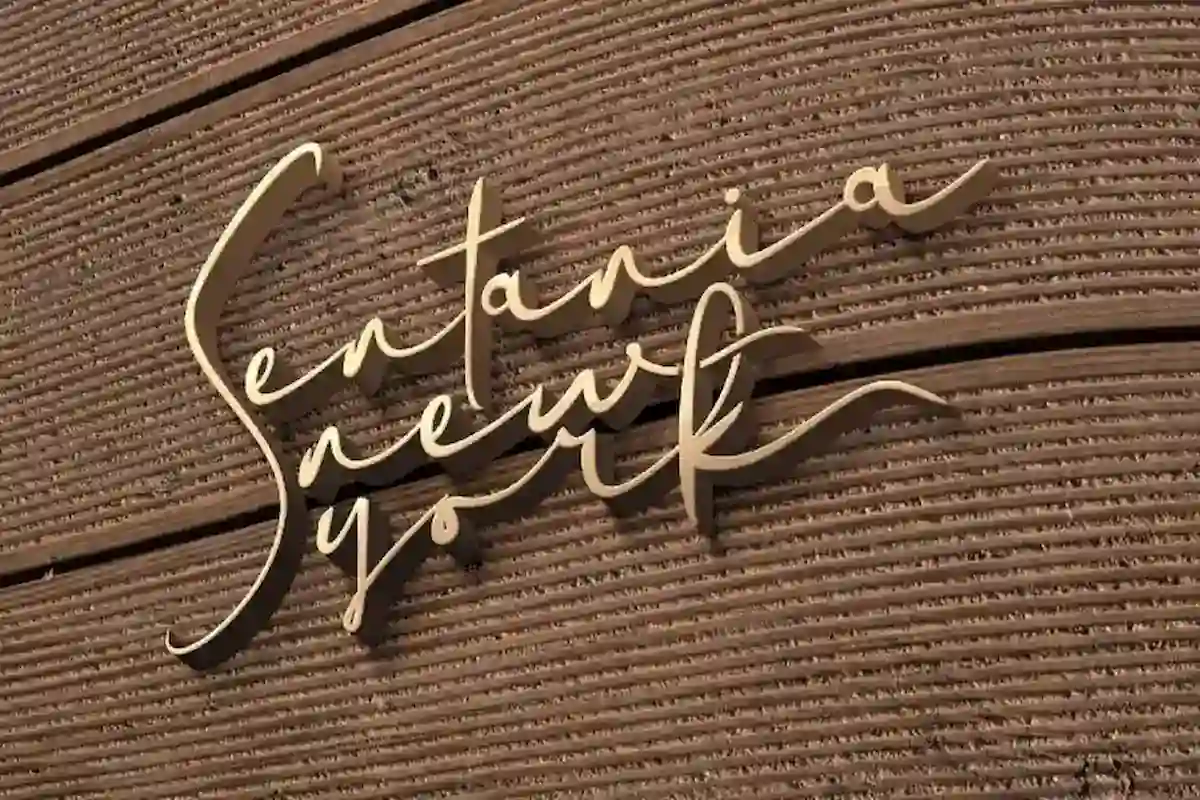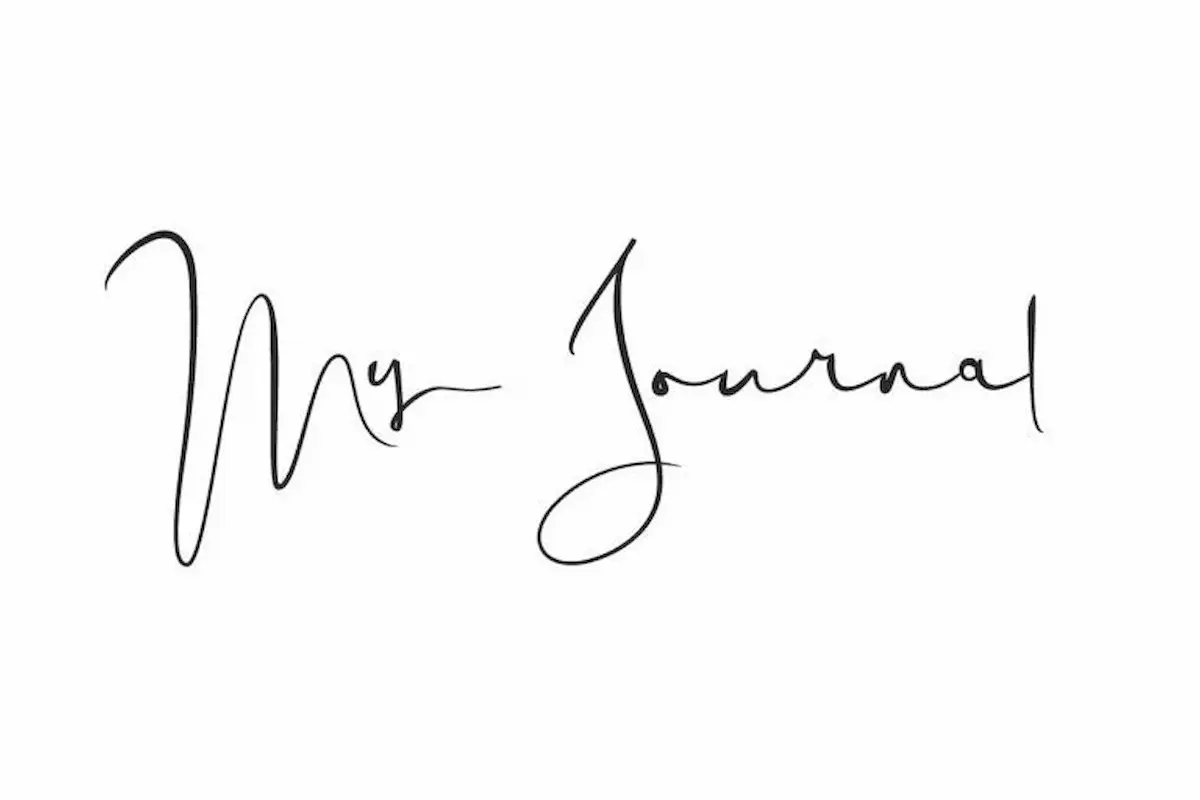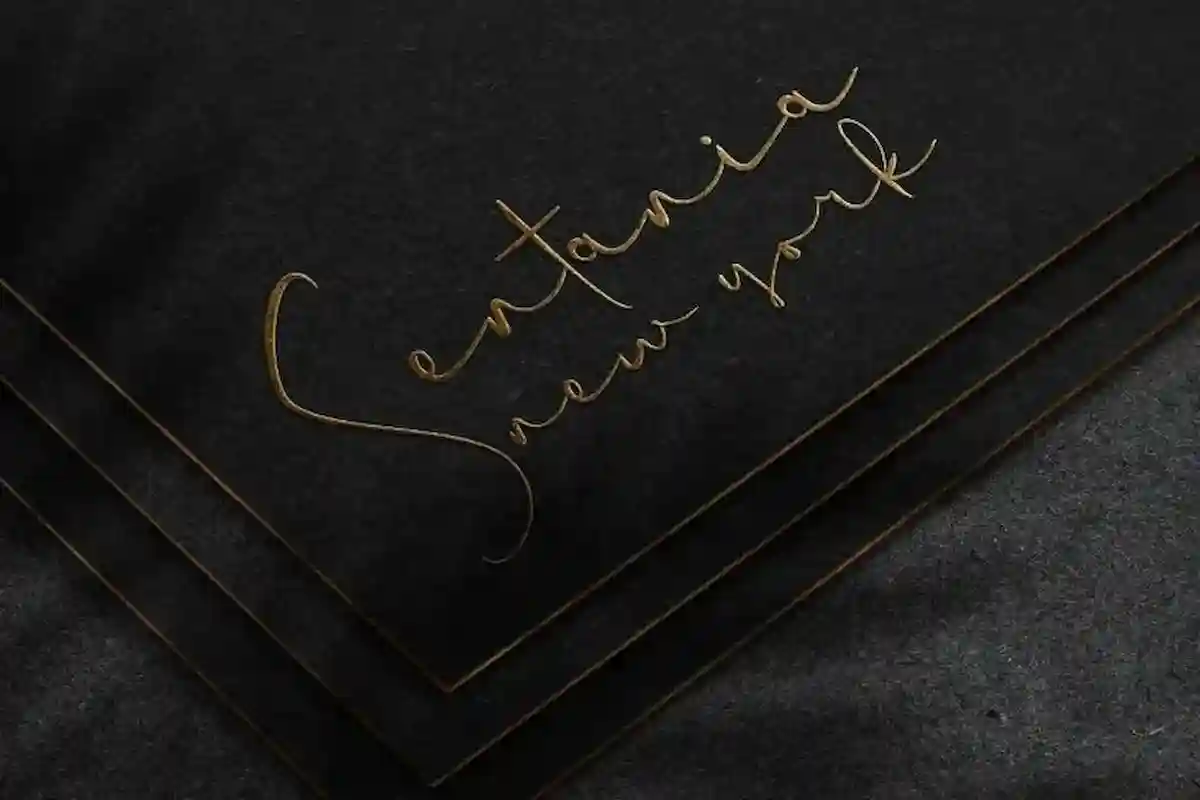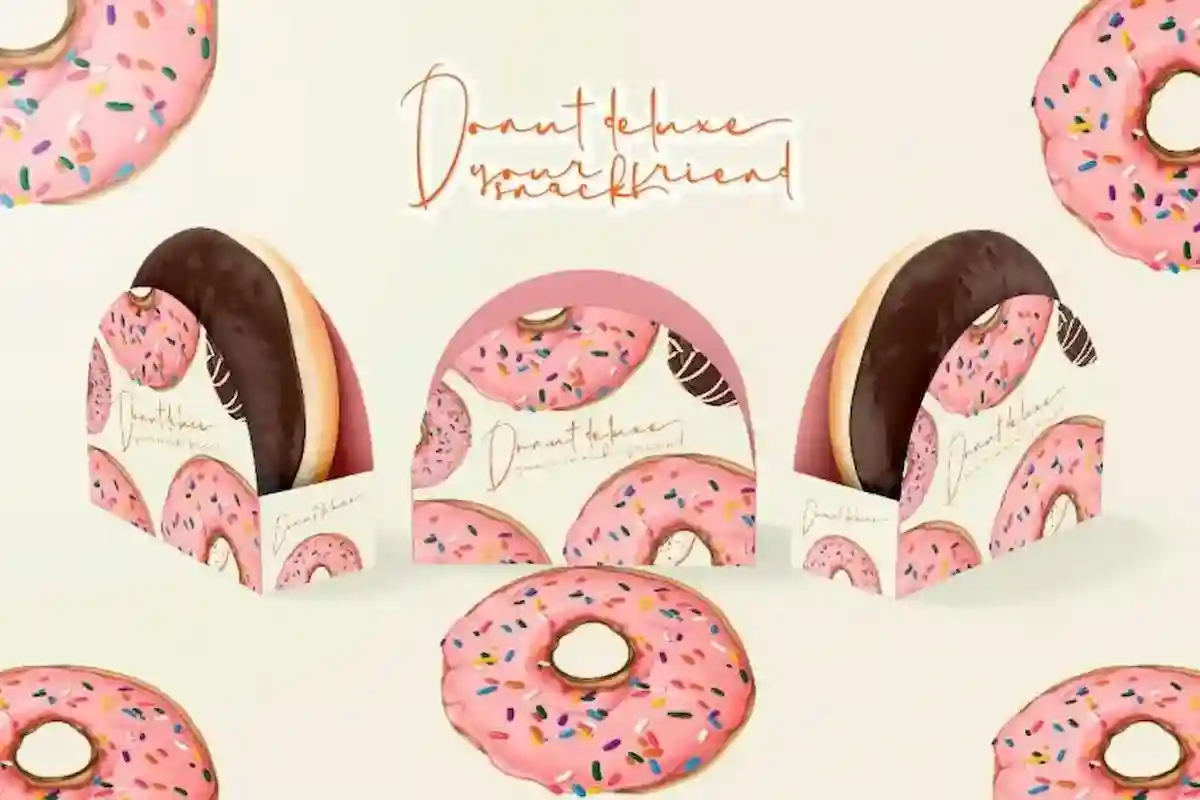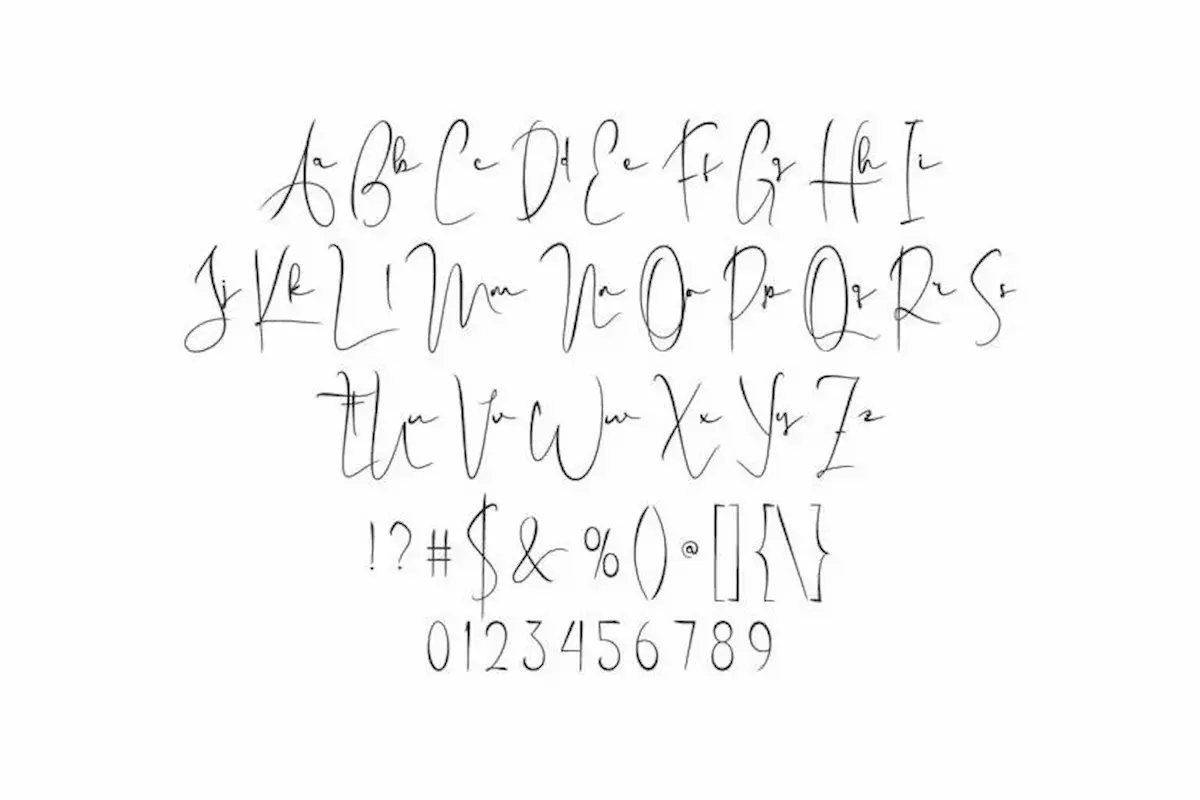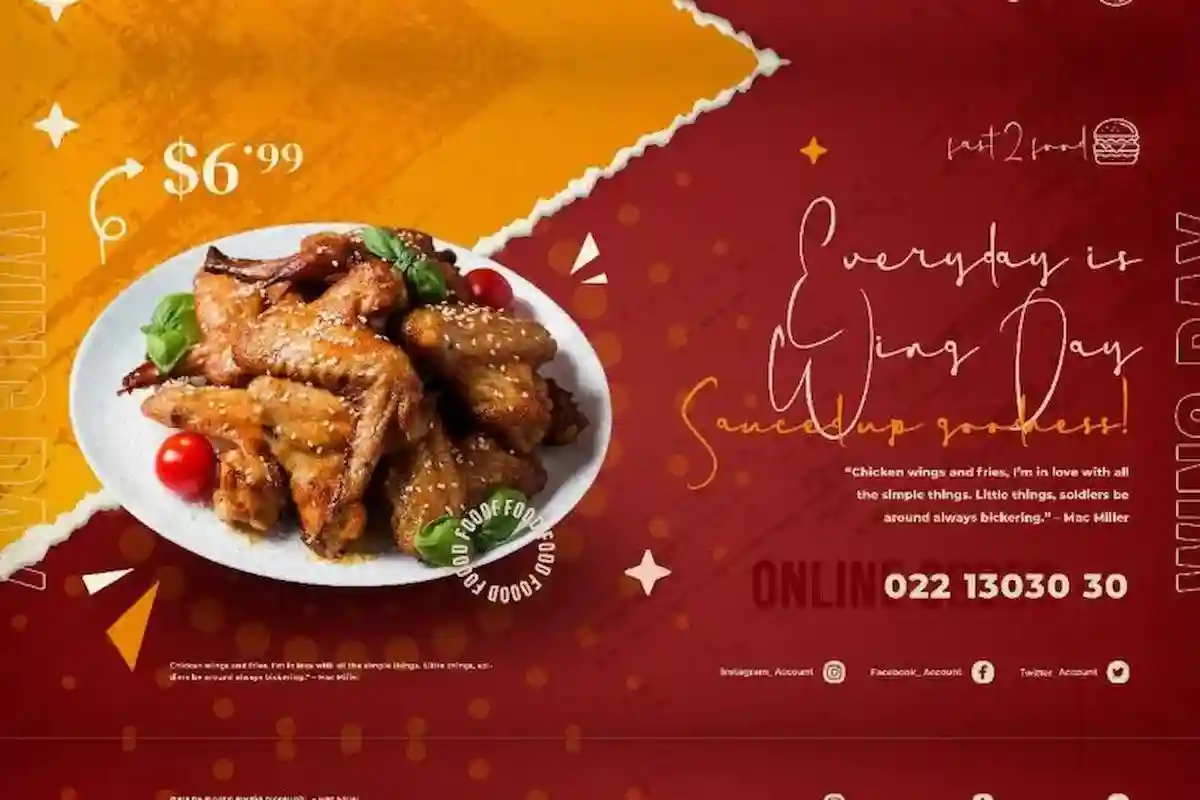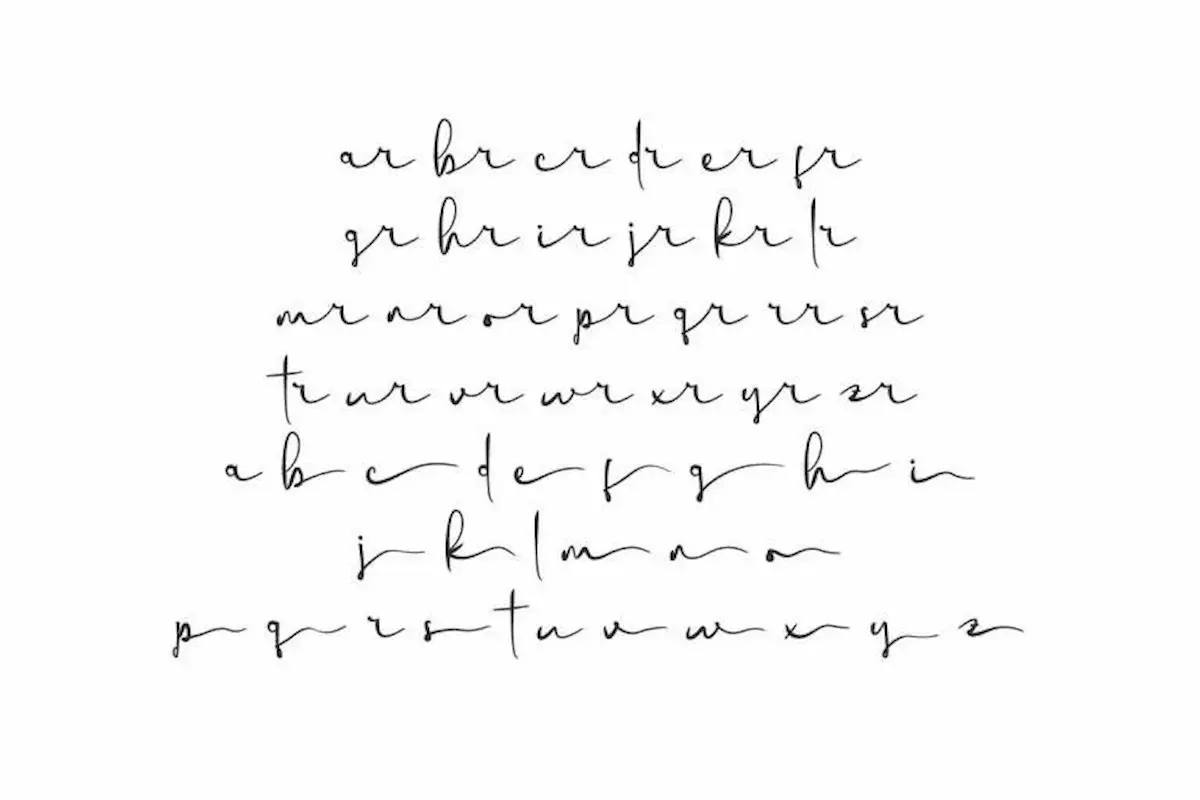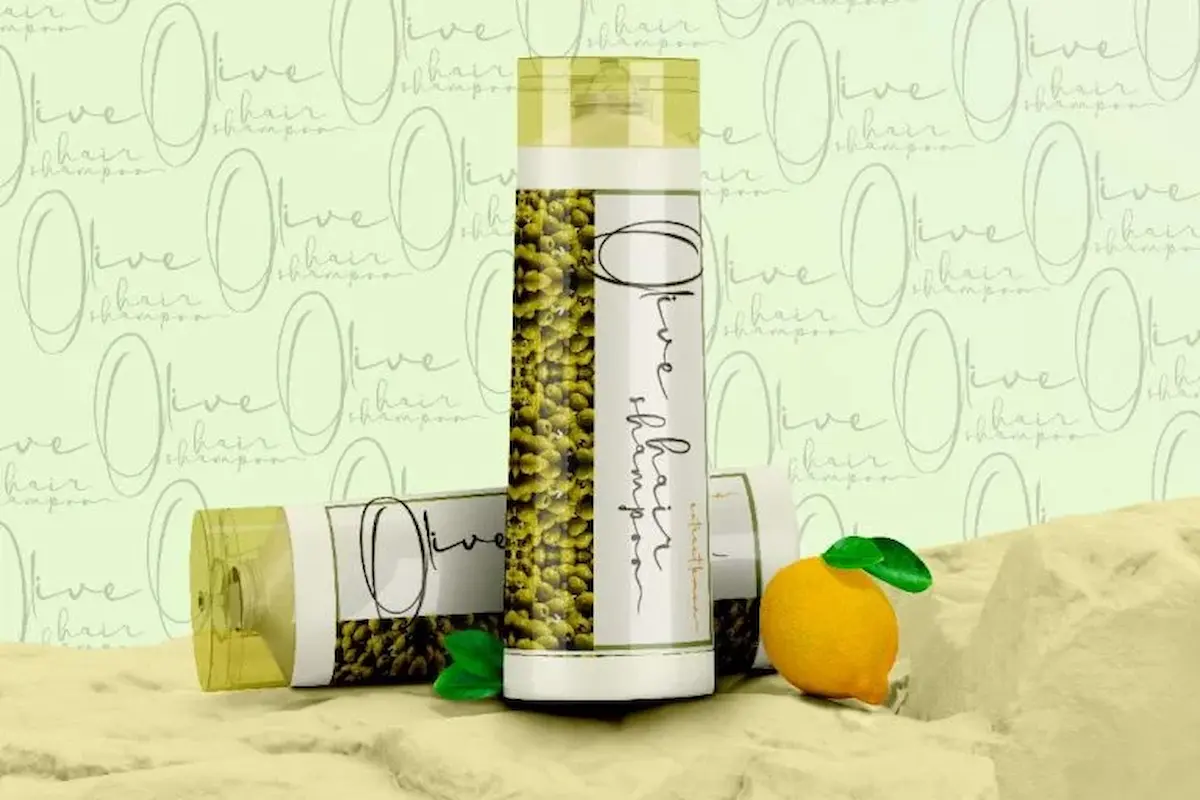
My Journal Font
My Journal Font is a signature script with irregular lines make it look different and authentic suitable for cosmetic, jewelry, packaging design, restaurant, stationery, etc.
My Journal Font is a stunning natural handwritten script font, created by NihStudio. This beautiful font have a thin stroked typeface like you use ink on a pen. It’s perfect for any industry such as accessories, cosmetic, fashion, homeware, jewelry, publishing, real estate, restaurant, snack brand, etc.
My Journal Font will go well with any type of font and will create the perfect display! It would be great for corporate and personal identity such as brochure, creating logo, label, product packaging, signage, stationery, title, etc. Carefully crafted to create a flawless and easy to read.
My Journal Font comes with a full set of Uppercase and Lowercase Basic Characters, Number, a large range of Punctuation and Symbol, Ligature, Alternate, and also supports multilingual characters. Ready to use both on Windows machine or Mac with simple installations. It’s tested to work well in the Adobe Apps (Illustrator, Adobe InDesign, Adobe Photoshop) CorelDraw, and others. PUA Encode Characters means you can access all the glyphs and other additional characters easily – Fully accessible without additional design software.